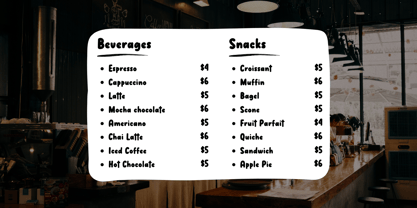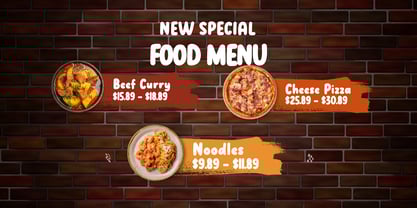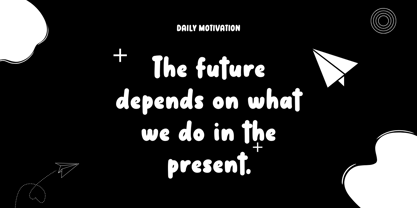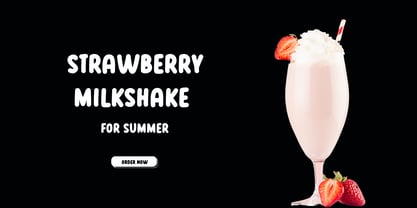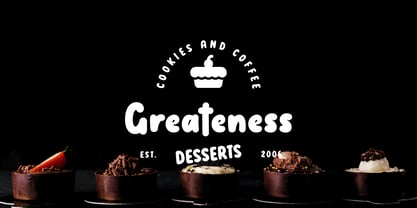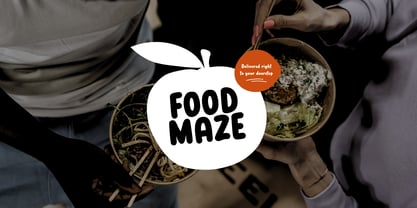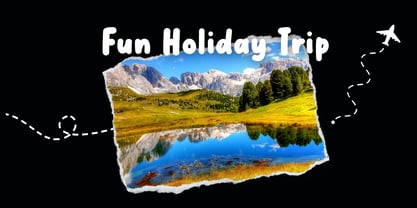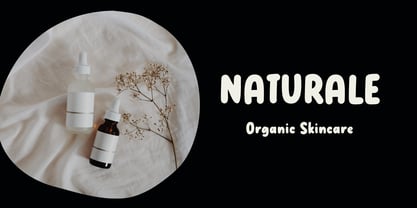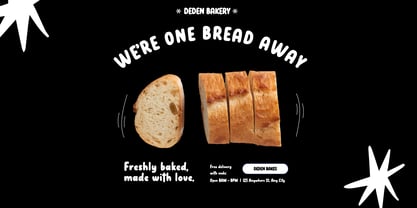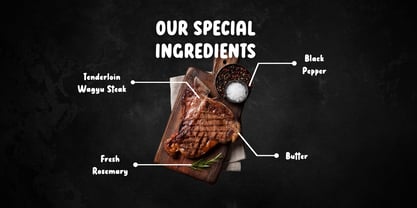
Guava Harvest
by Fikryal
The Guava Harvest Font Family was designed by Muhammad Fikry and published by Fikryal. Guava Harvest contains 1 styles. More about this family
Guava Harvest is a fun and cheerful handwritten display font that brings a burst of personality to your creative projects. With its bouncy letters and organic strokes, this font feels like a handwritten note from a sunny day at the farmer’s market.
Perfectly imperfect, Guava Harvest is great for branding, packaging, posters, social media graphics, kids’ products, and anything that needs a touch of playful charm. Whether you’re designing for a handmade soap label or a cozy café menu, this font adds a warm and approachable vibe.
Add a splash of sweetness to your designs with Guava Harvest – the font that feels like sunshine in a typeface.